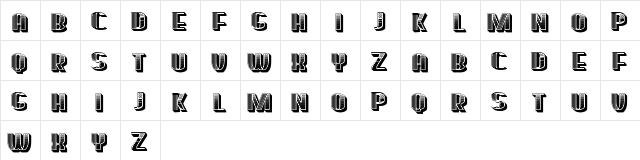
Broeksel Regular
Design Context for Broeksel Typeface
Broeksel is a composed and adaptable typeface that performs quietly and consistently across a wide range of design contexts.